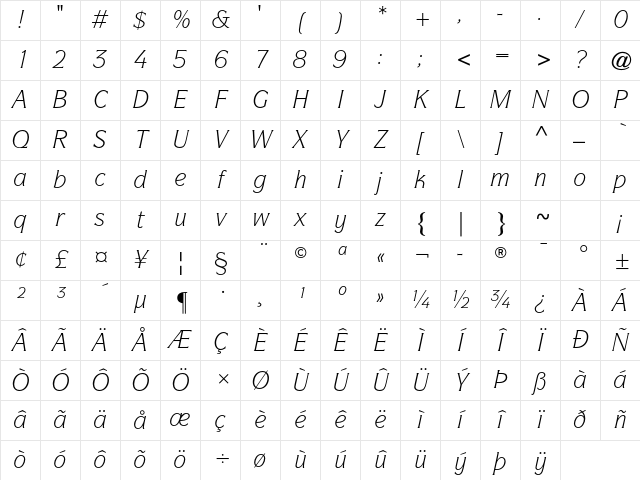
ITC Symbol Std Book Italic
Style: Book Italic
Designer: Aldo Novarese
Design Context for ITC Symbol Std
ITC Symbol Std is a composed and adaptable typeface that performs quietly and consistently across a wide range of design contexts. The slanted form adds forward momentum and visual energy.
Pro Tip: Use ITC Symbol Std for emphasis, pull quotes, and subheadings where its slanted energy can add rhythm to the layout.